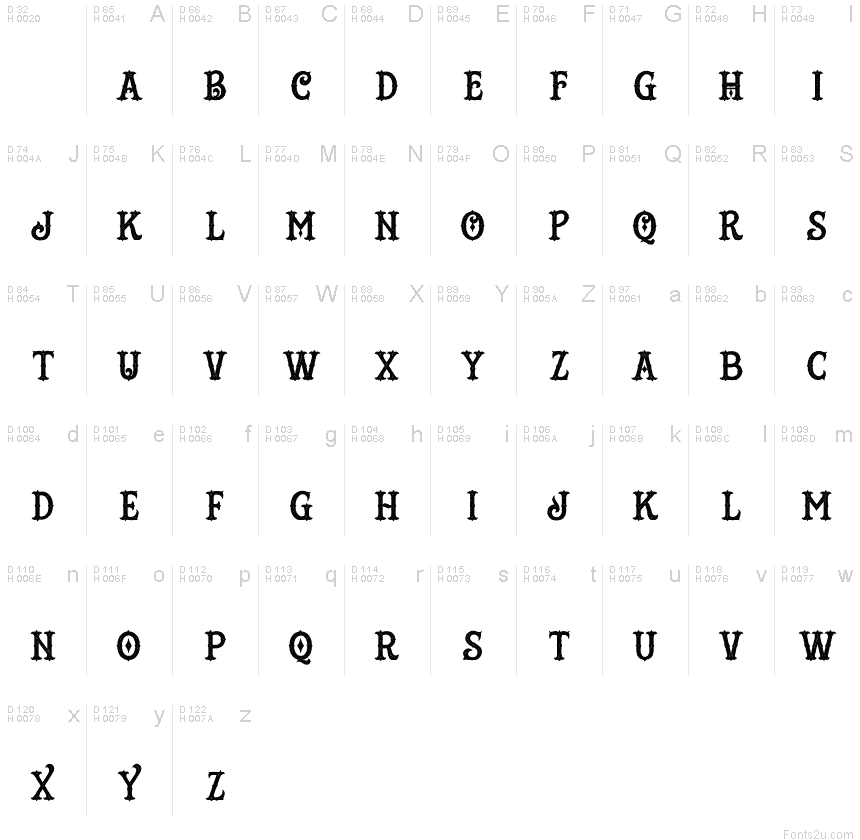
Tattoo Shop by Gilang Purnama Jaya of Decade Type Foundry is a free Western decorative display font with the punch of vintage tattoo lettering. Its broad capitals carry split, pointed serifs and small diamond-shaped cuts. A distressed surface keeps the formal shapes from looking too polished.
The thorny points and cutout details can echo borders, banners, and flourishes in tattoo-flash illustration. It suits apparel graphics, barbershop branding, and music posters. Across those uses, the mix of ornate construction and weathered texture provides an immediate link to inked, hand-finished artwork.